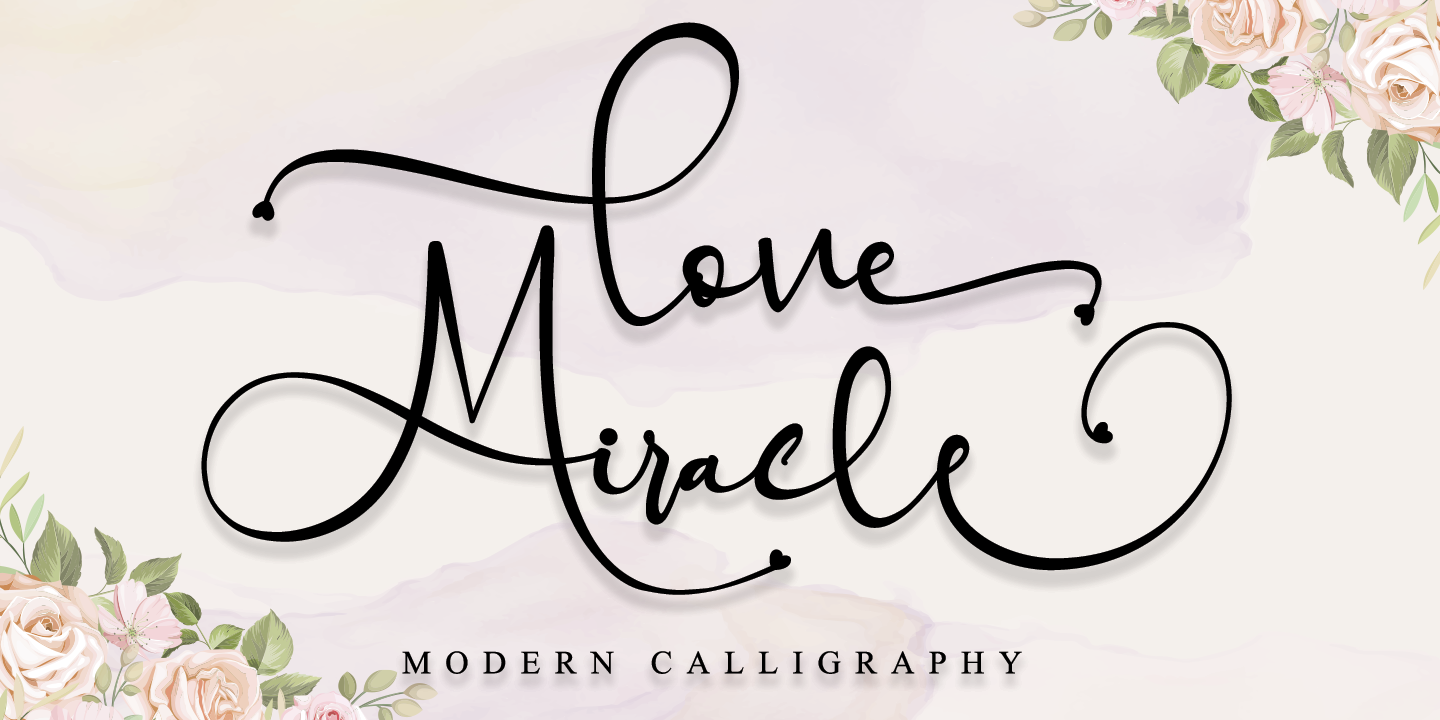
Love Miracle Font is perfect for romantic wedding invitations, miracle healing center branding, love-themed greeting cards, spiritual wellness materials, heart-centered therapy practices, and inspirational design projects. Its miraculous character makes it ideal for wedding planners, relationship counselors, spiritual healing centers, love coaches, and any application requiring heartfelt typography that conveys divine love, miraculous transformation, and the extraordinary power of love to heal and inspire.
Love Miracle Font is exciting because it captures the transformative power of divine love through tenderly crafted letterforms that radiate warmth, healing, and miraculous energy. Its gentle curves and heart-centered proportions evoke the sacred nature of love's ability to create miracles in human hearts and relationships, making it perfect for organizations dedicated to spreading love and facilitating healing transformation. The font's miraculous character transforms ordinary text into vessels of love and hope.
Love Miracle Font family includes heart-inspired weight variations typically featuring Light, Regular, and Medium options with flowing styles that mirror love's gentle movements. The family often incorporates heart symbols, healing ornaments, and spiritual flourishes designed for love-centered applications, providing designers with comprehensive tools for creating authentic, love-focused typographic compositions.